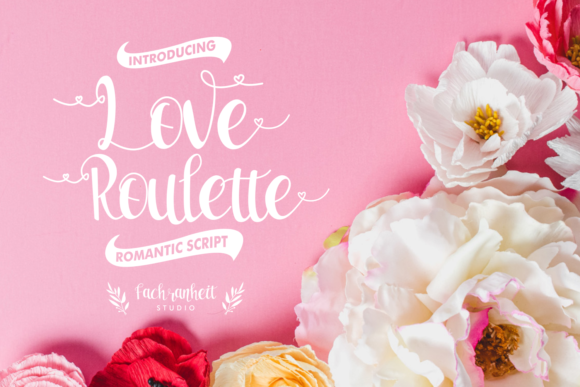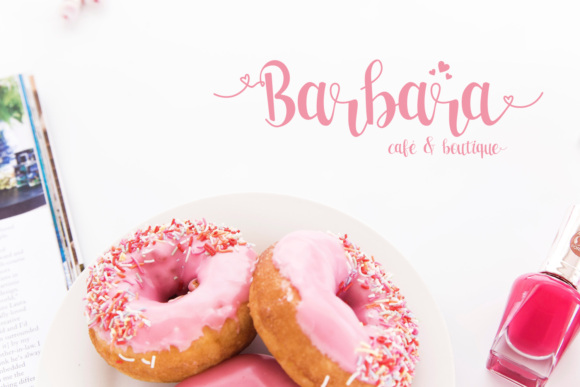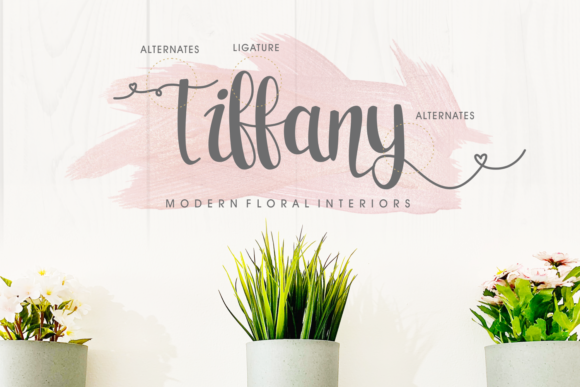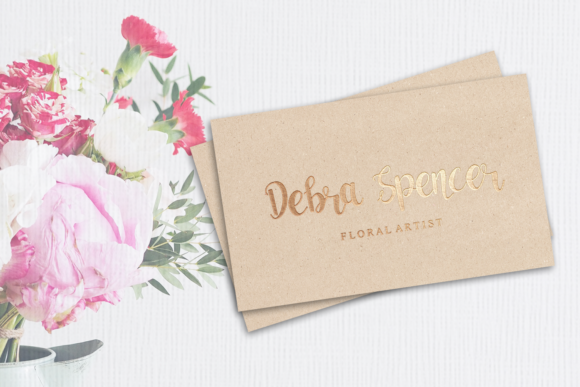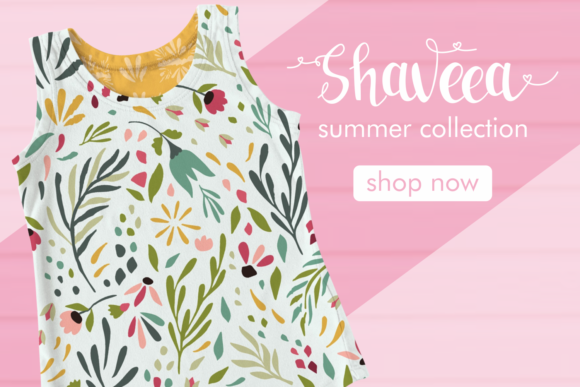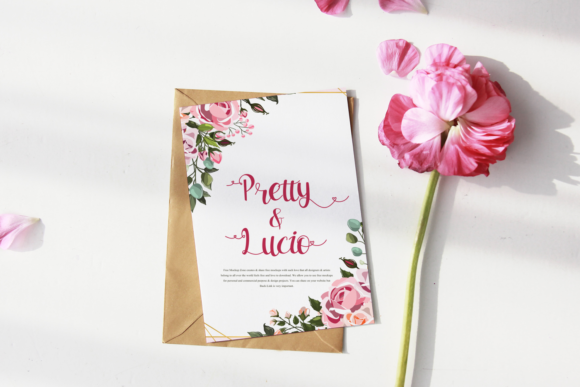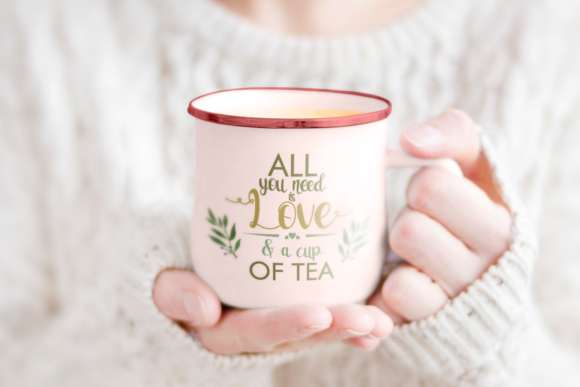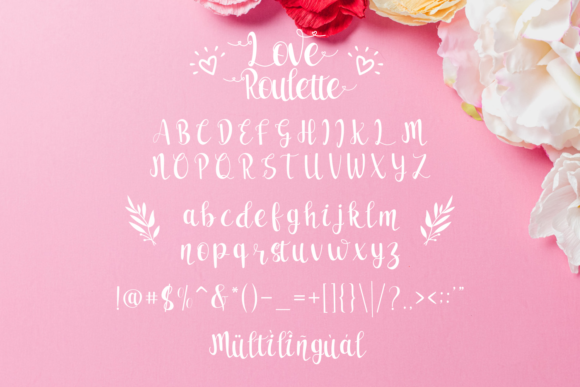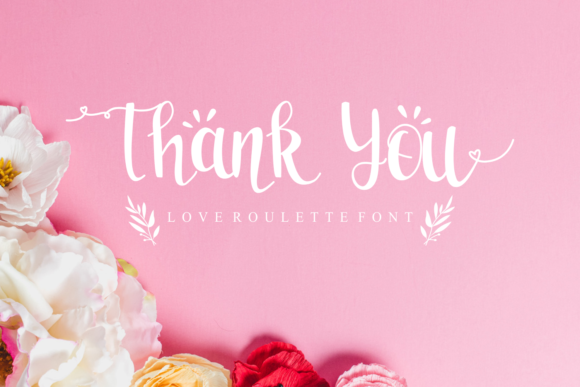
Love Roulette Font
Love Roulette is inspired by classic typography and brings its own unique style to any design project. This fantastic script font is best suited for headlines of all sizes, as well as for blocks of text that have both maximum and minimum variations. Whether it’s for web, print, moving images or anything else – Love Roulette will look spectacular.